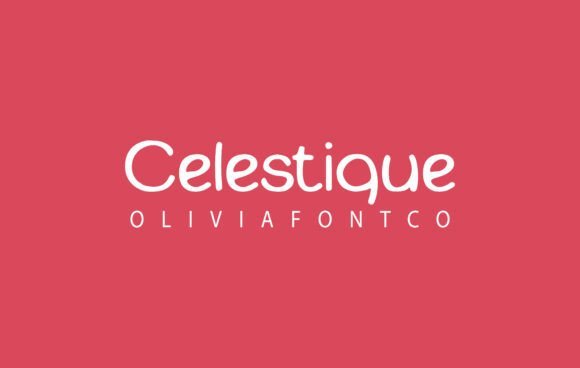
The Perfect Touch of Whimsy: Unlocking the Potential of Celestique Font
There’s nothing quite like the feeling of being inspired by a beautiful piece of art, a stunning photograph, or a heartfelt message. The creative spark ignites, and you know exactly what you want to create. For many designers, this moment is the starting point of a new project, a fresh idea, or a bold statement. It’s the thrill of bringing your vision to life, and the right font can make all the difference.
That’s where the Celestique Font comes in – a beautiful, authentic handwritten font that adds a touch of romance and elegance to any design. Expertly designed to be a true favorite among designers, this versatile font is perfect for a wide range of applications, from magazine headlines to wedding invitations and social media graphics.
Celestique Font Key Features
- Unique Characteristics: The font features a unique blend of elegant and whimsical elements, with intricate details and subtle flair, making it perfect for creating visually striking designs.
Celestique Font Review
Overall, I think the Celestique font has some nice qualities that make it worth considering for your design projects.
- Unique, elegant design that adds a touch of sophistication to any project.
- High-quality rendering, making it perfect for both digital and print use.
- Good range of weights and styles, allowing for flexibility in your design.
- Well-suited for use in titles, headings, and body text.
- May not be as readable at very small font sizes, potentially affecting legibility.
- Lack of a bold weight, which may limit its use in certain design scenarios.
- Some users may find the design a bit too ornate or distracting.
Overall, I’d say the Celestique font is a solid choice for designers looking for a high-end, elegant look. While it may have some limitations, its unique design and high-quality rendering make it a great option for a variety of projects.
Getting the Most Out of Celestique Font
To get the most out of Celestique Font, consider the following tips:
- Use Celestique Font for creative projects that require a touch of elegance and sophistication.
- Combine Celestique Font with other elegant fonts to create a unique and stylish look.
Celestique Font is commonly used for:
Alternatives to Celestique Font for Designers
Oswald is a sans-serif font that works well for titles and headings. It is a great alternative to Celestique Font for designers who want a modern and clean look. Oswald is more geometric and has a stronger structure compared to Celestique Font, making it ideal for use in digital interfaces and publications.
Lato is a sans-serif font that is highly legible and versatile. It is a good choice for designers who want a font that works well for both body text and titles. Lato has a softer and more rounded appearance compared to Celestique Font, making it suitable for use in creative and modern designs.
Montserrat is a sans-serif font that is inspired by urban typography. It is a great choice for designers who want a font that is modern and edgy. Montserrat has a more condensed and geometric appearance compared to Celestique Font, making it ideal for use in titles and headings in digital interfaces and publications.